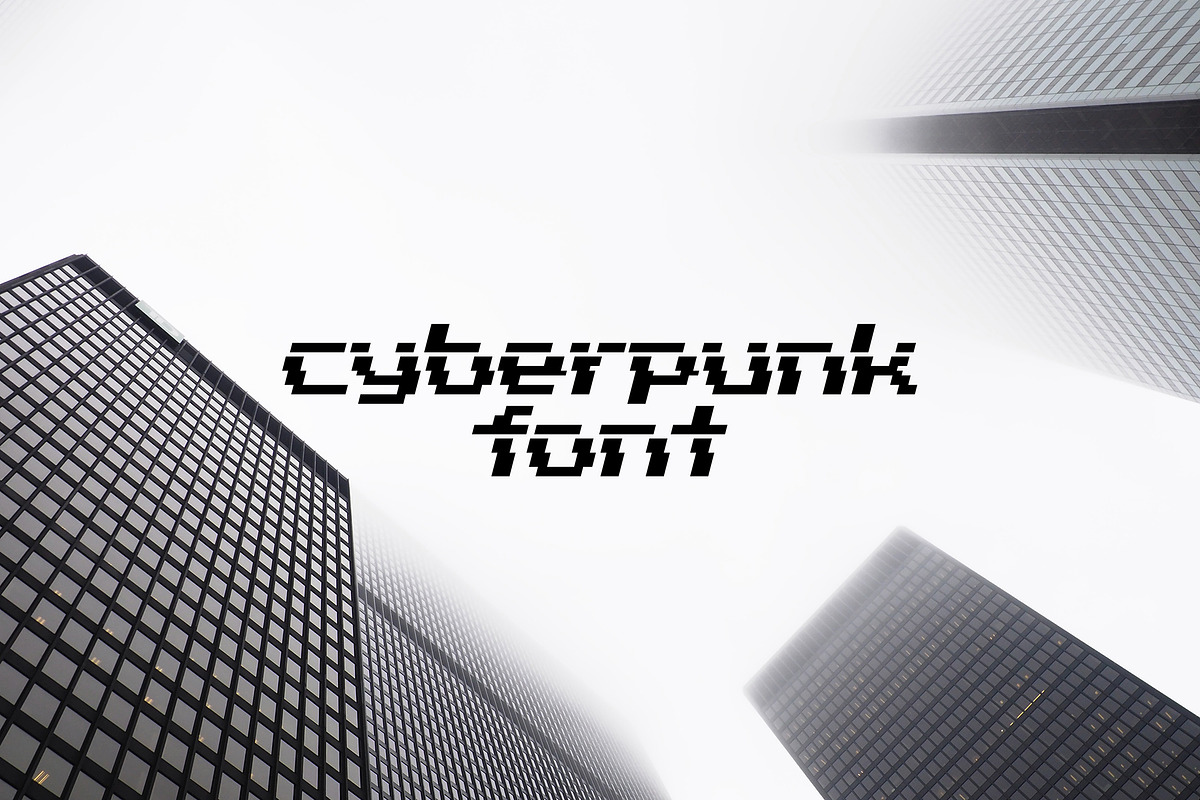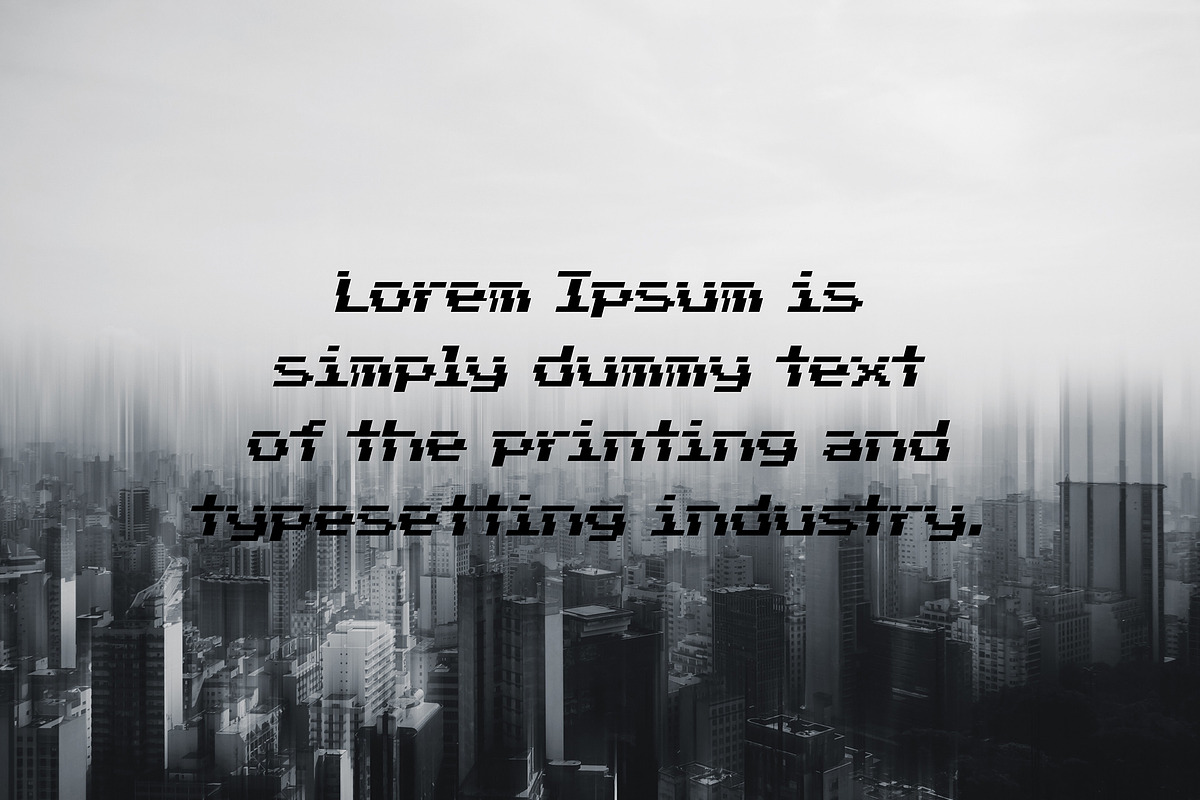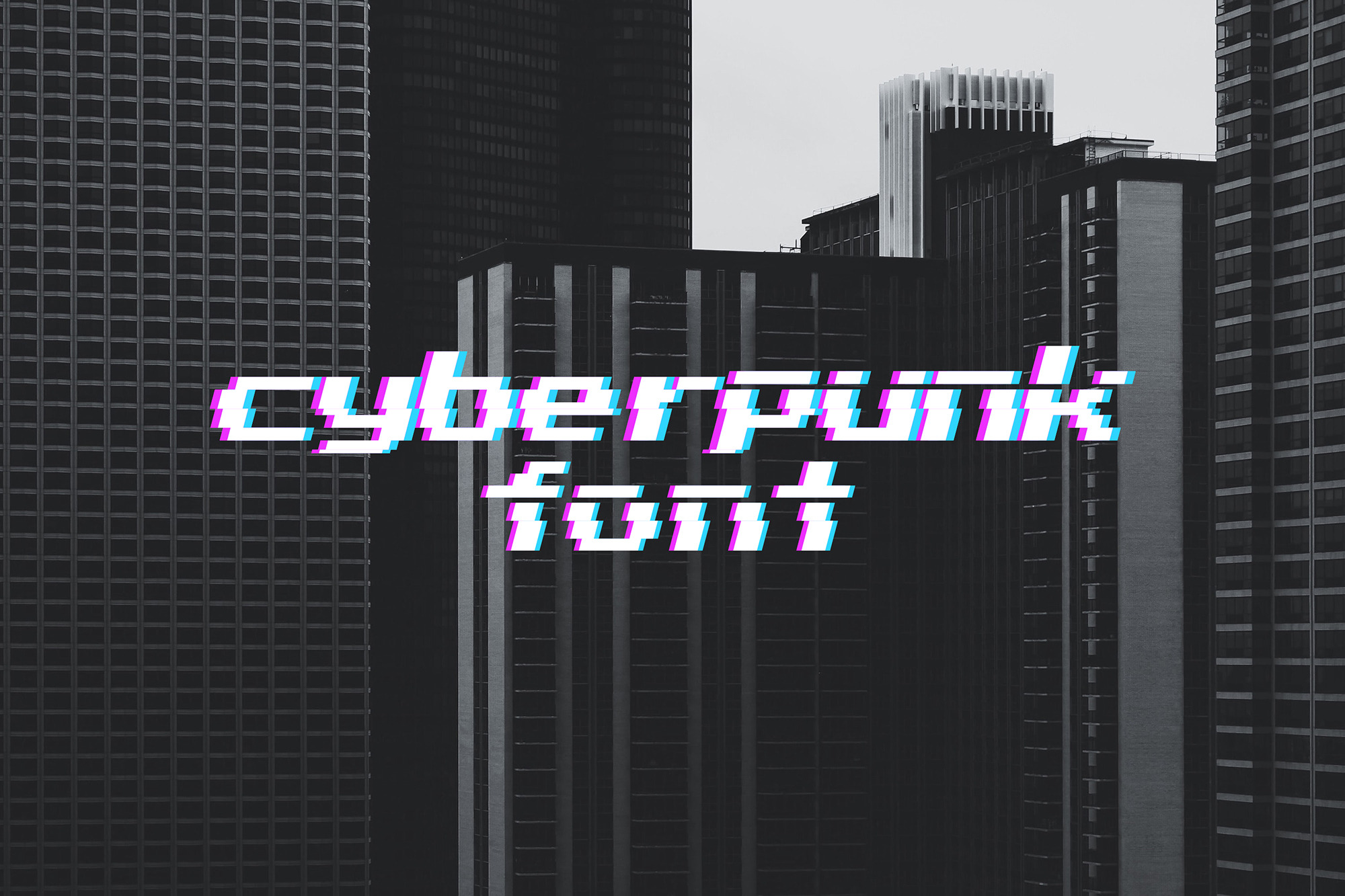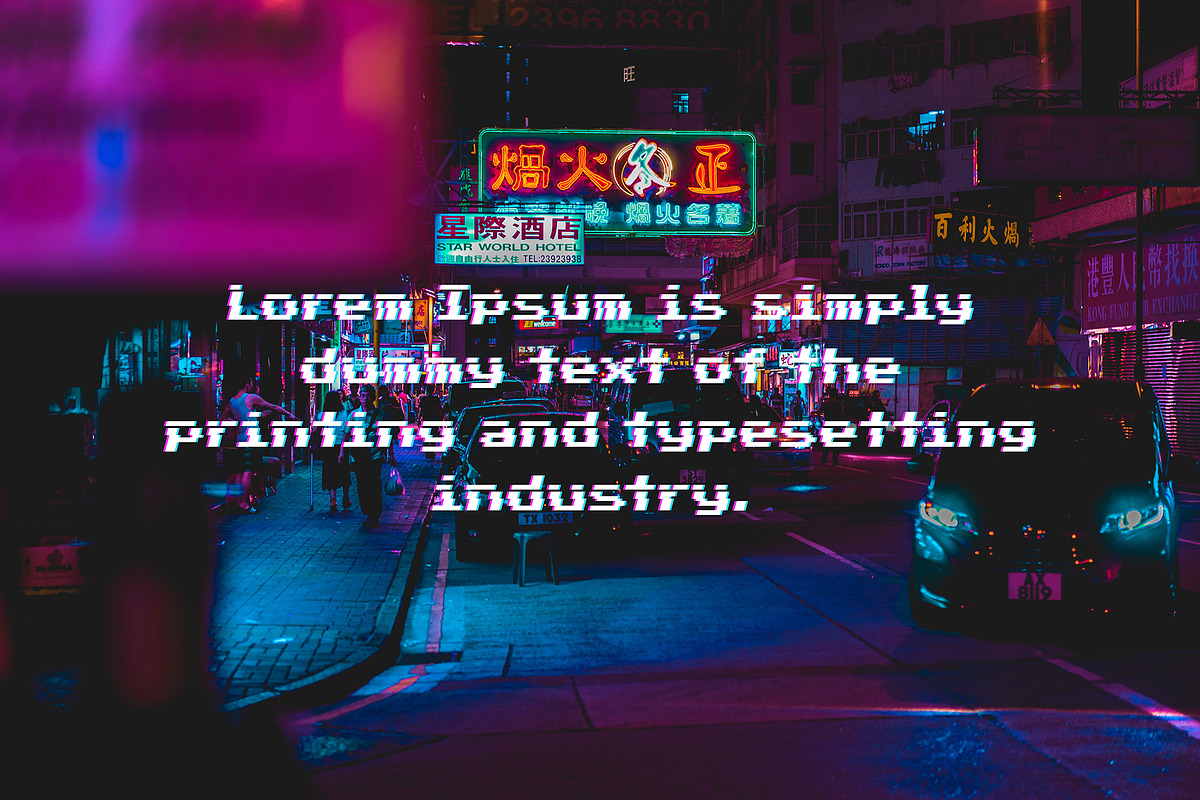
Glitch cyberpunk font / 8-bit fonts.
- Glitch and error fonts from squares, 8 bit, 16 bit letters and numbers for your design. Two different fonts provide an opportunity to choose a more suitable design, font with glitch effect and black font, all objects are made in vector format that can be used in any size without loss of quality.